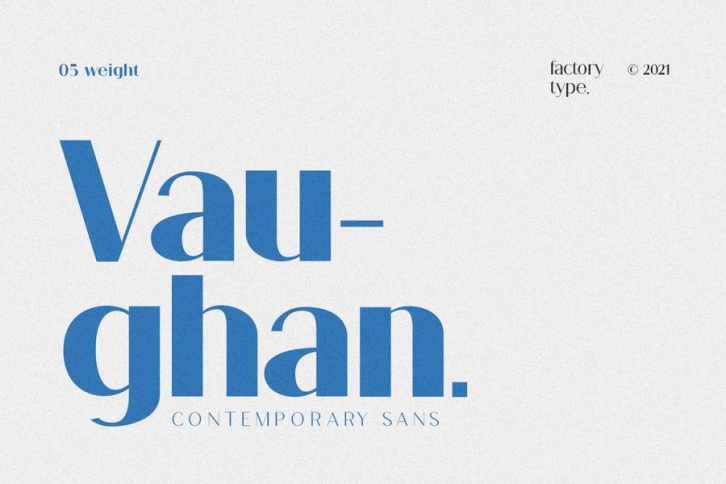
Vaughan is a contemporary and minimalist sans serif font family. The different weights offer a variety of options to help you find the best typographic color for your project. This is an unrivaled sans serif for varying your headlines, branding visual identity, poster, logo, magazines, and so on.
- 5 Weights (Light, Regular, Semibold, Bold, Black)
- Basic Latin A-Z and a-z
- Multilingual Support for ä ö ü Ä Ö Ü ...